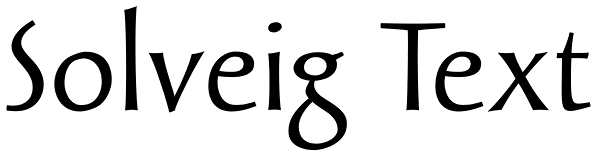
Solveig
Solveig is a stressed sans that draws inspiration from calligraphy and classical letterforms. Its ascenders and descenders are long and expressive; in place of finials, its terminals taper to points. Its name comes from Edvard Grieg's "Solveig's...